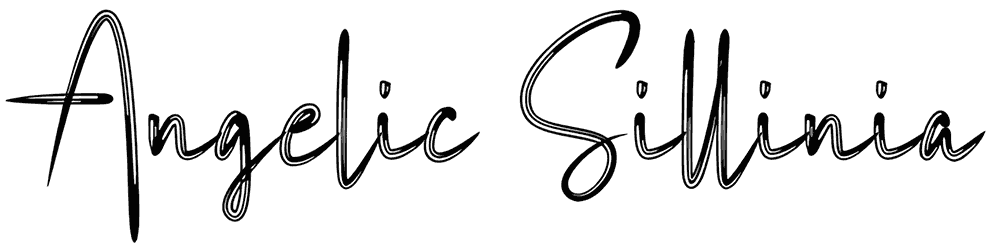
Angelic Sillinia Font
If you feel that you have no more space to add a script font, you will probably free up some space by looking at Angelic Sillinia. Using this brush font, you can leave lasting designs on stationery covers, office letterheads, business cards, and wedding invitations. The human feeling hidden in this font’s letters can arouse the viewer’s emotions and tickle their pure desires.